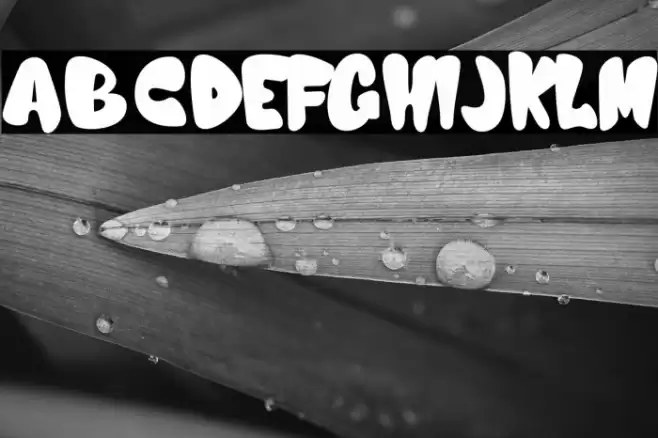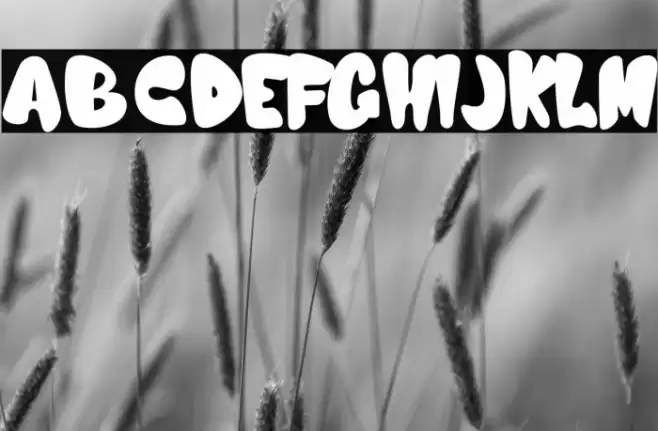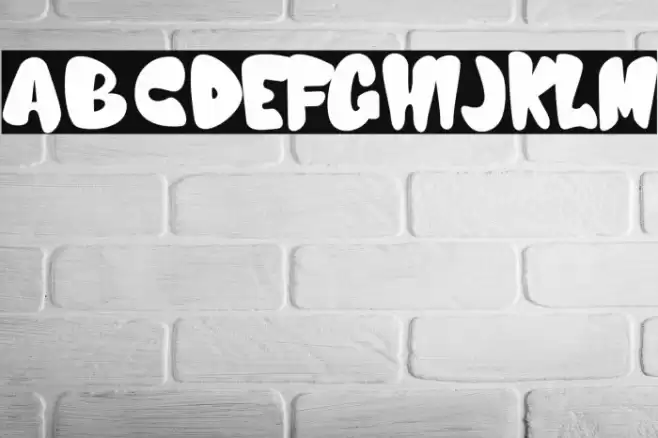
Nijikon japan - Personal use Font
Nijikon japan - Personal use Description
This font features bold, rounded characters with a playful and cartoonish style. The letters are thick and have a bubbly appearance, making them stand out with a strong visual impact. The uppercase and lowercase letters maintain a consistent style, with the lowercase letters slightly smaller but equally bold. The numbers and special characters follow the same design, ensuring uniformity across all characters. This font's exaggerated curves and soft edges give it a friendly and approachable feel, ideal for projects that require a fun and informal touch.
A bold, playful font with rounded, cartoonish characters from Uncategorized fonts.
- Font: Nijikon japan - Personal use
- Proposed Projects: Ideal for children's books, comic strips, playful branding, and event posters.
- Overall Style: Playful, Cartoonish